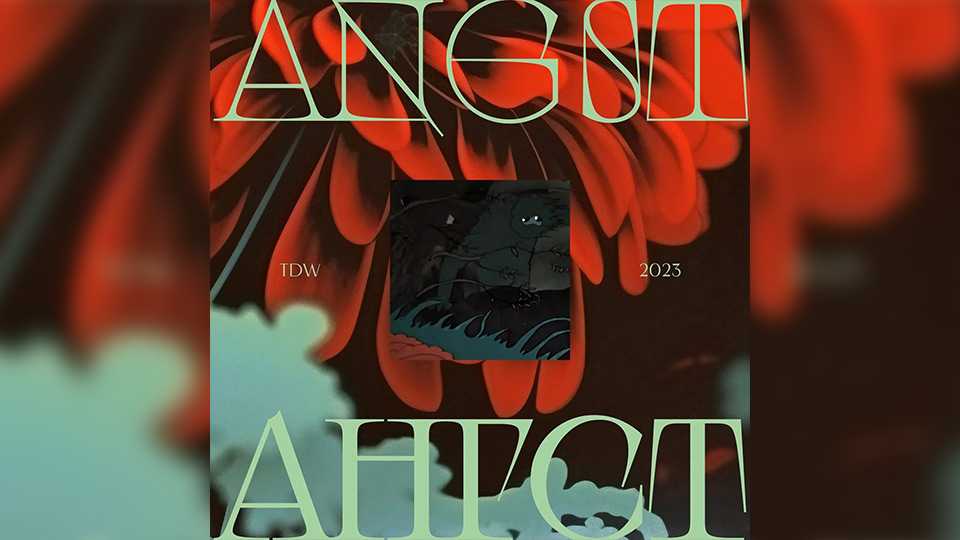
Download Angst font, a unique display typeface with six variations and two axis, inspired by the old inscription at a Moscow metro station. Angst typeface includes extended Latin and Cyrillic sets.
Designer: Misha Ivanov